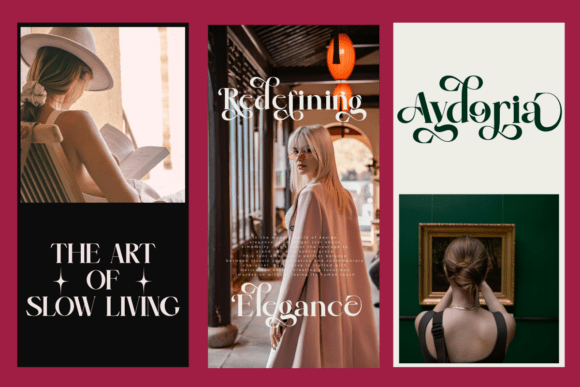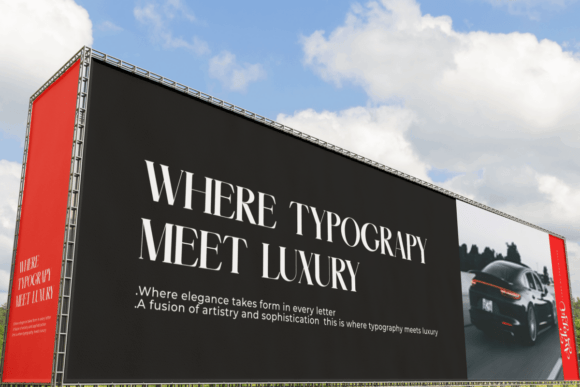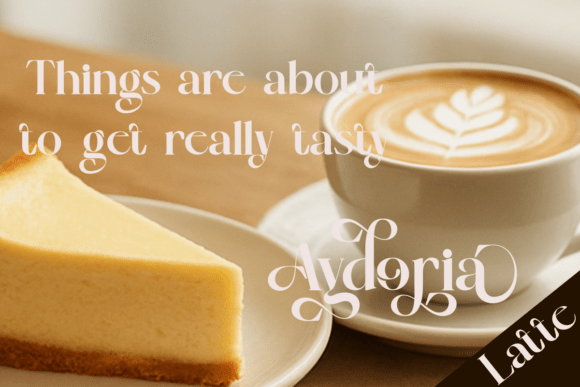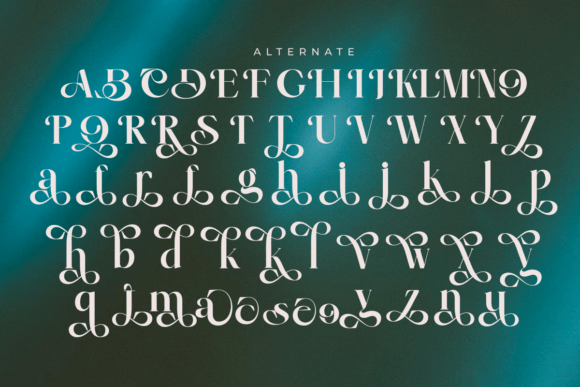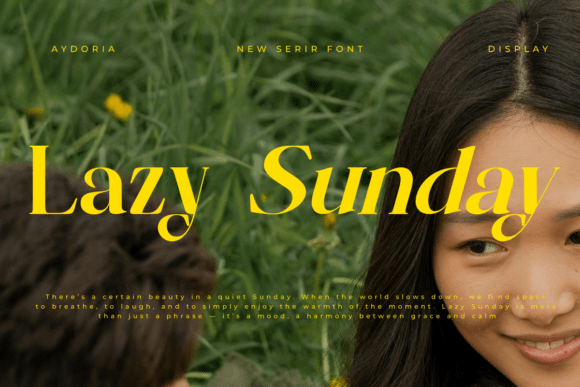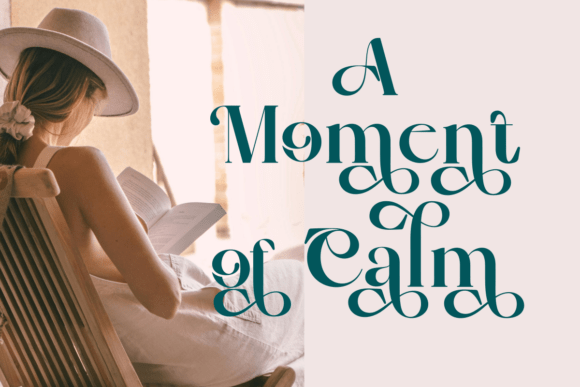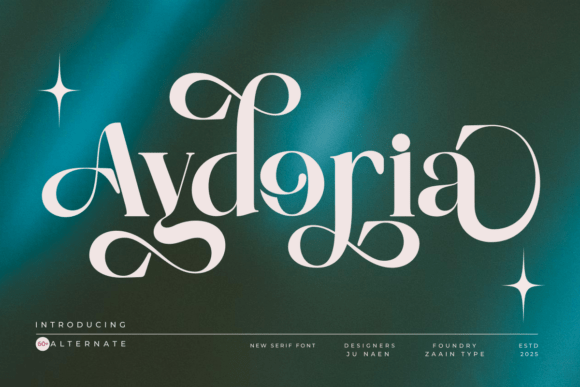
Aydoria Font: Elevate Your Design with Elegance and Sophistication
In the world of typography, few fonts manage to strike a balance between classic elegance and modern sophistication. Aydoria, an exquisite serif font, achieves this delicate balance with finesse. Its carefully crafted curves and refined serif details create a timeless and graceful aesthetic, perfect for designers seeking to infuse their work with a high-end feel.
The Essence of Aydoria
Aydoria is more than just a font; it’s an experience. Each letter is designed to convey a sense of luxury, sophistication, and refinement. The subtle contrast and elegant serif details work in harmony to create a captivating character that elevates every word. Whether you’re working on luxury branding, editorials, premium packaging, or fashion design, Aydoria brings a level of sophistication that’s hard to match.
Design Features of Aydoria
Aydoria’s design is characterized by:
• Refined Serif Details: The font’s serif details are meticulously crafted to add a touch of elegance and sophistication to any design.
• Subtle Contrast: The subtle contrast in Aydoria’s curves creates a sense of depth and dimensionality, making it perfect for high-end applications.
• Timeless Aesthetic: Aydoria’s classic design ensures that it remains timeless, even as design trends evolve.
Perfect for Luxury Applications
Aydoria is specifically designed for luxury applications, making it an ideal choice for:
• Luxury Branding: Aydoria’s sophisticated aesthetic makes it perfect for luxury brands seeking to establish a high-end identity.
• Editorials: The font’s elegant design makes it suitable for high-end editorials, such as fashion magazines and luxury lifestyle publications.
• Premium Packaging: Aydoria’s refined serif details and subtle contrast make it perfect for premium packaging, adding a touch of luxury to any product.
• Fashion Design: The font’s sophisticated aesthetic makes it an excellent choice for fashion designers seeking to create high-end branding and marketing materials.
Why Choose Aydoria?
With so many fonts available, why choose Aydoria? Here are a few compelling reasons:
• Sophistication: Aydoria exudes a sophisticated, refined, and timeless aura, making it perfect for designers seeking to create high-end designs.
• Versatility: The font’s classic design ensures that it remains versatile, suitable for a wide range of applications.
• Elegance: Aydoria’s elegant design makes it perfect for designers seeking to create luxurious, high-end designs.
Aydoria is a font that embodies elegance, sophistication, and refinement. Its carefully crafted curves and refined serif details create a timeless and graceful aesthetic, perfect for luxury branding, editorials, premium packaging, and fashion design. With its sophisticated aura and versatile design, Aydoria is an excellent choice for designers seeking to infuse their work with a high-end aesthetic. Whether you’re working on a luxury branding project or a high-end editorial, Aydoria is sure to elevate your design to new heights.